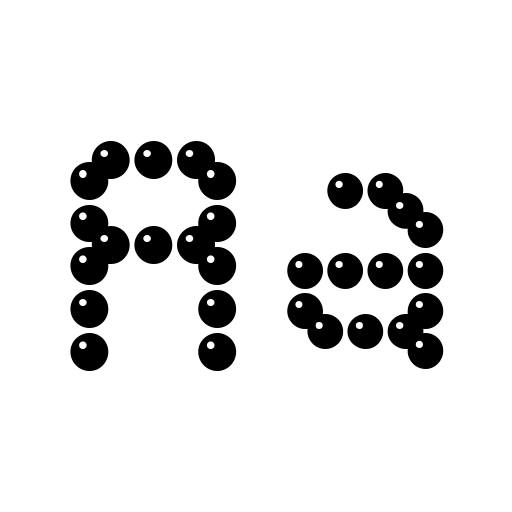
Campcraft is a playful, decorative sans serif font composed of small circles forming each letter and symbol, giving it a unique dotted texture. Its light weight and regular width make it eye-catching, with a friendly and informal style perfect for creative or craft-themed projects, logos, and headlines where a fun and distinctive look is desired. This font works well in designs aiming for a handmade or casual vibe, adding personality and charm to various branding and display uses.
Campcraft Font
About Campcraft Font